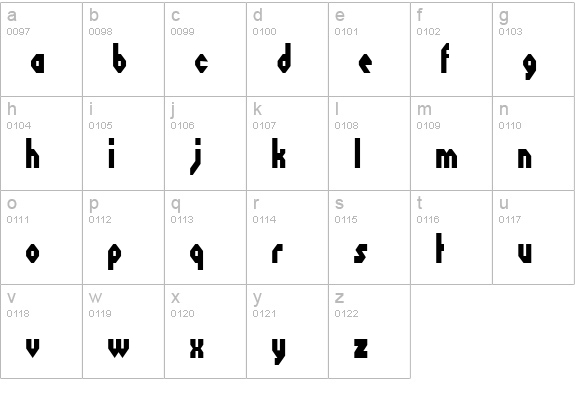
Introducing Octoville font, a unique and eye-catching typeface that is sure to make a statement in any design project. This modern and stylish font features octagonal shapes and clean lines, giving it a sleek and contemporary look. Perfect for branding, headlines, posters, and more, Octoville font is versatile and can be used in a variety of design applications. What's even better is that Octoville font is completely free to download at FontsMarket.com. Yes, you read that right - this high-quality font is available for free, allowing you to enhance your projects without breaking the bank. Don't miss out on this fantastic opportunity to add Octoville font to your font collection today!